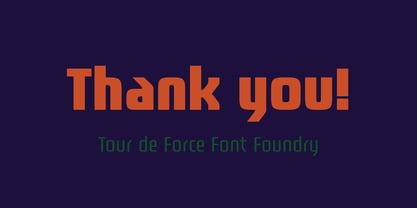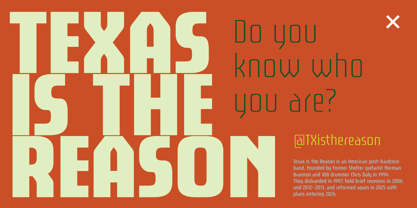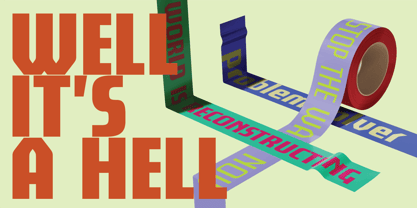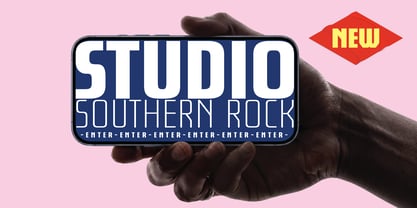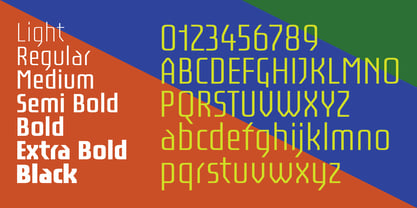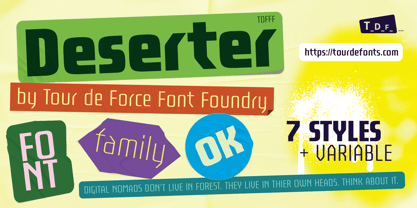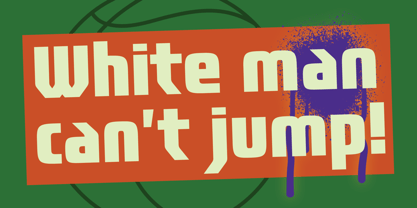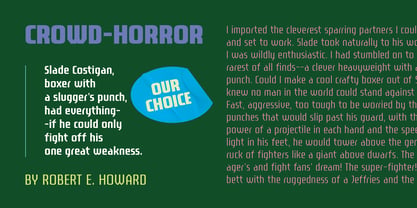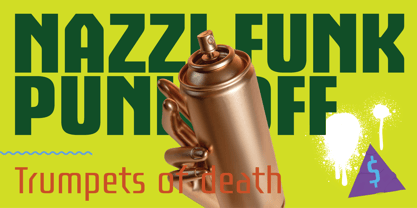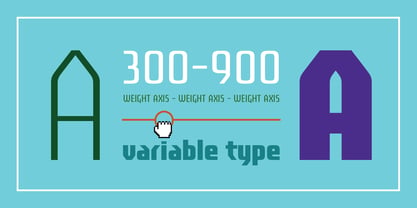
Deserter
by Tour De Force
The Deserter Font Family was designed by Dusan Jelesijevic and published by Tour De Force. Deserter contains 3 styles. More about this family
Meet Deserter, a structural display family engineered with the rigid, utilitarian logic of information technology and digital systems. It balances a hard-edged geometric backbone with brutal chamfered corners, shifting from a precise, wireframe-like aesthetic in its lighter weights to a massive, tightly packed wall of type in the heavier styles. Built to give branding, editorial layouts, and tech-driven interfaces an authoritative, systematic edge, it is a typeface designed for layouts that need to command a space.
Engineered for modern workflows, the family spans seven weights from Light to Black, available as both static files and a flexible variable font. Deserter delivers the raw, systematic attitude your projects need, backed by the production utility you actually want.